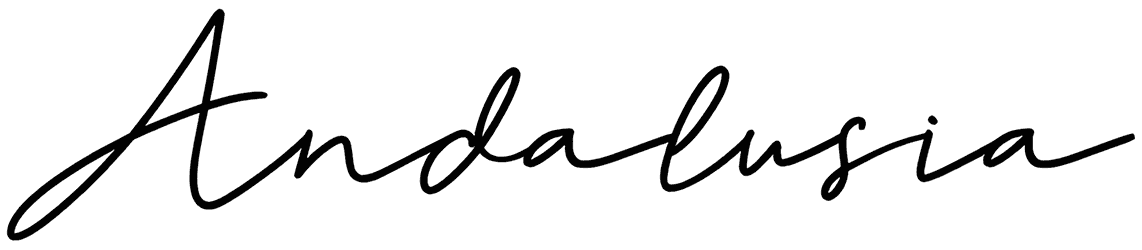
Andalusia Font
If you’re in need of a handmade font that combines a lot of human and artistic aspects, you might want to take a closer look at Andalusia. This script font has a special elegance with alternating letters that can create a classic and completely exclusive touch in your designs.
This signature font, which is a member of the classic font family, can be a good choice for wedding cards, writing on the packaging, and a friendly letter.